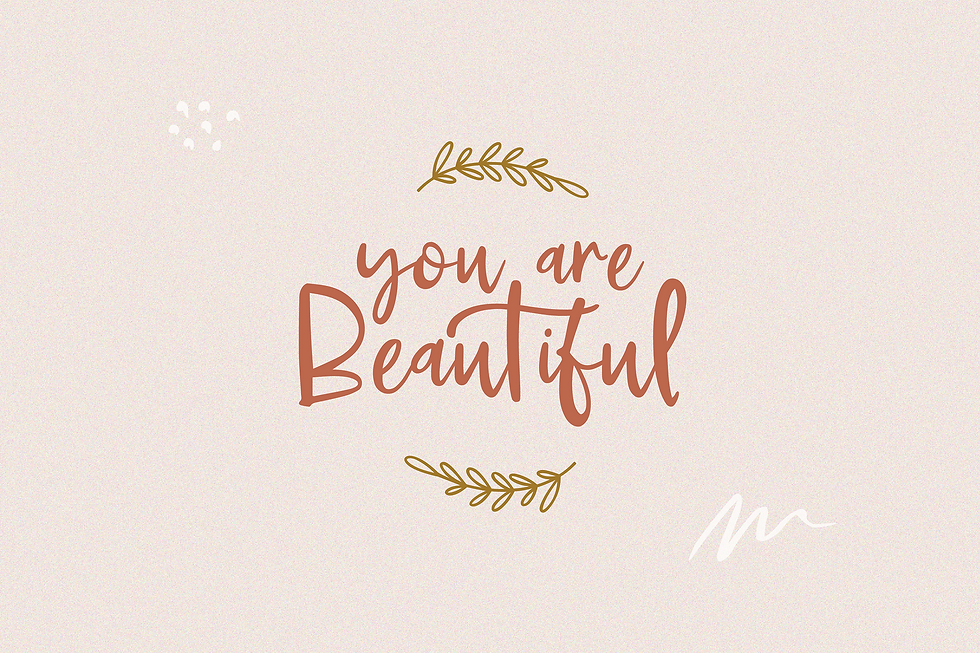
My Reason
My Reason is an imperfect handwritten font.
This font is perfect for creating quotes, signs with sayings, products, and much more in an easy way. You can also create a lot of beautiful products with the additional source file (My Reason Extras Font).